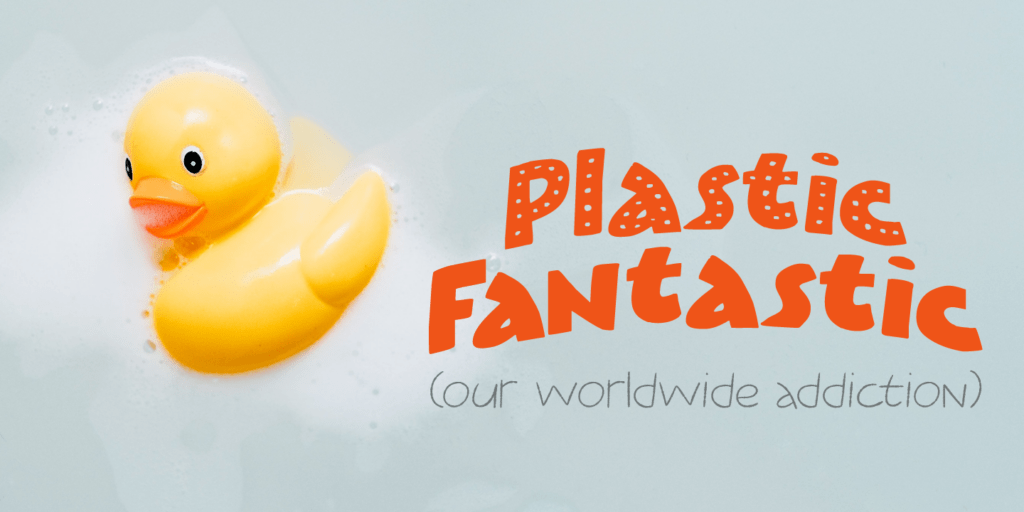
Plastic Fantastic Font
About the Plastic Fantastic Font
I have just returned from a trip to Malaysia, Java and Bali with my family: my wife had some family business there, so we turned it into a holiday. The last time I visited these places was 26 years ago and I knew things would have changed, but I wasn’t prepared for the ugly truth. Malaysia’s interior has been converted into one big oil palm plantation, Java is choked in plastic and Bali is one endless string of concrete hotels, restaurants and cheap tattoo parlours.
Plastic Fantastic is not an ode to the many uses of plastic. It is a wake up call: we really need to stop using disposable plastic!
You can start by implementing the Plastic Fantastic font family in your durable water bottle designs, the compostable bag holding your organic potato crisps or that big ole sign advertising your local food truck event.
Or whatever it is you want to create. 😉